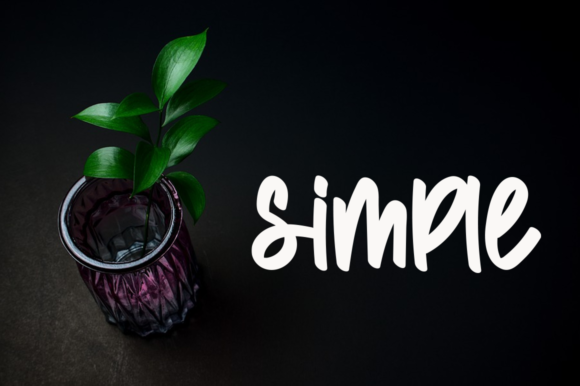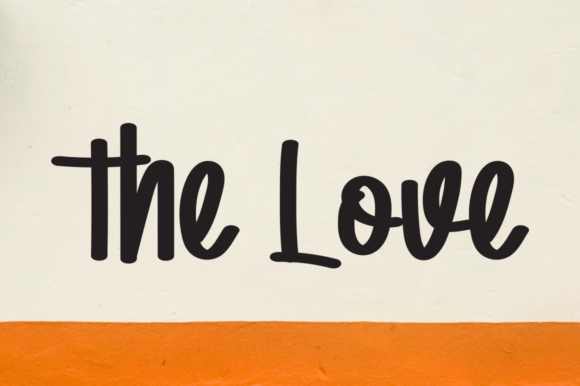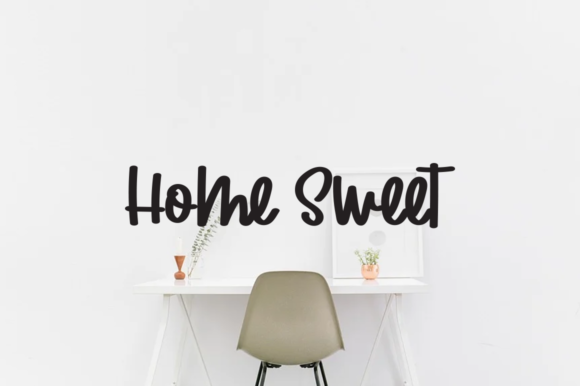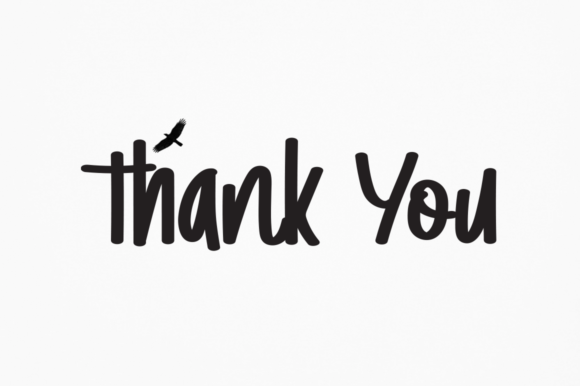
About Summer Signature Font
Summer Signature is a cool, bold and trendy paint brushed handwritten font. It can be used for various purposes such as logos, wedding invitations, headings, t-shirts, letterhead, signage, labels, news, posters, badges and so much more.